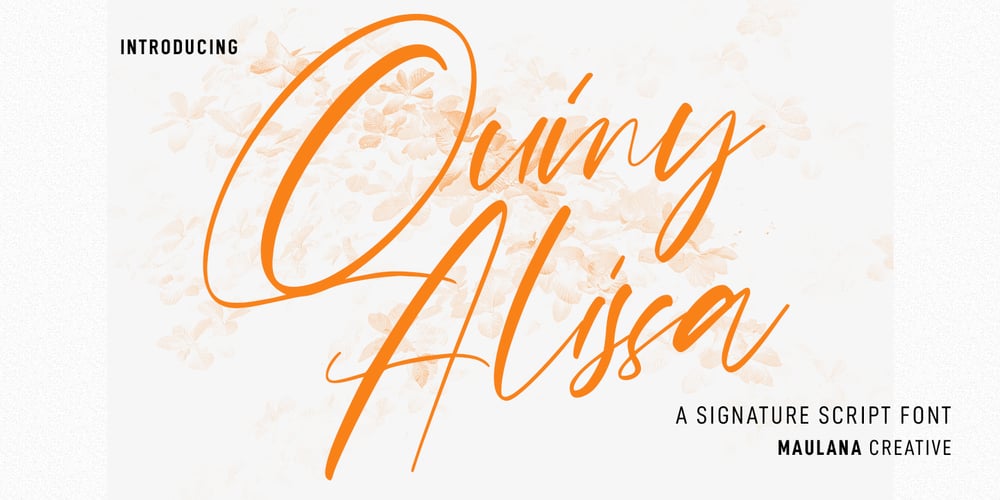
Quiny Alissa Font Family was designed by Gilang Maulana and published by Maulana Creative. Quiny Alissa contains 1 styles and family package options. Quiny Alissa is an expressive signature script font. With high contrast slanted stroke, fun character with a bit of ligatures and alternates. To give you an extra creative work. Quiny Alissa font support multilingual more than 100+ language. This font is good for logo design, Social media, Movie Titles, Books Titles, a short text even a long text letter and good for your secondary text font with sans or serif. Make a stunning work with Quiny Alissa font. Cheers, Maulana Creative